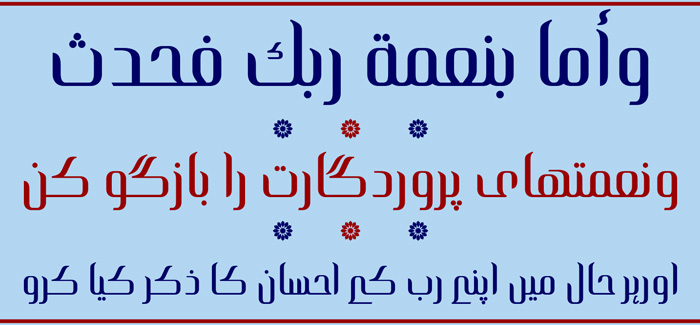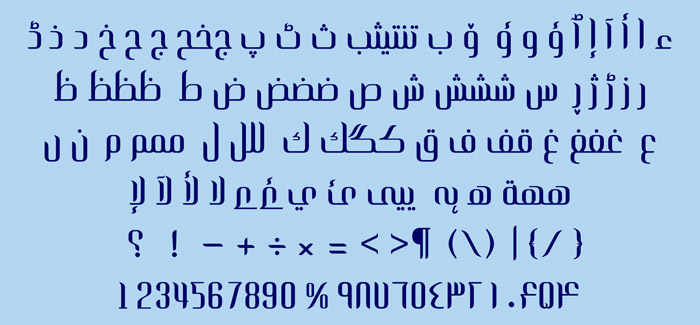
HS Alkitab font
HS Alkitab font is an Arabic display typeface, under “titles” category. It is useful for book titles, creative designs and modern logos. Also, it is used when a contemporary and simple look is desired that can fit with the characteristics of Latin fonts where horizontal parts are thinner than vertical ones.
The font is based on some modern lines of Kufi calligraphy along with some derived ideas of Latin fonts, maintaining the beauty of the Arabic font and its fixed rates.
Undoubtedly, the insertion of curved ornament in the vertical parts adds more beauty and fascinating diversity in the flow line between sharp, soft and curved parts.
This font supports Arabic, Persian, Urdu and Kurdish, consisting of two weights (regular and bold) which can add to the library of Arabic fonts contemporary models that meet with the purposes of various designs for all tastes.